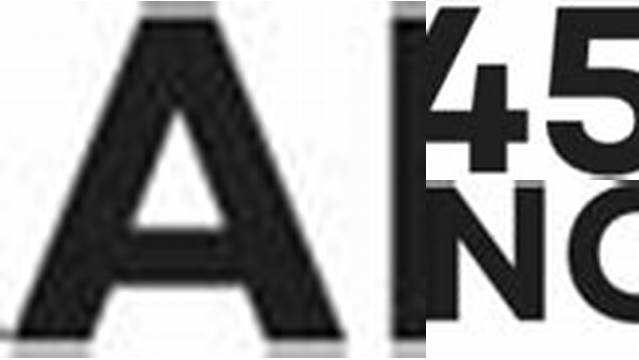
Let's talk about fonts, guys! Specifically, the Garet Bold OTF 700 font. It's a fantastic typeface, super versatile, and you might be looking to snag it for your next project. This guide will dive deep into everything you need to know about this font, from its characteristics to where you can safely download it for free. We’ll also explore its uses and some cool alternatives if you're feeling adventurous. So, buckle up, and let's get font-astic!
What is Garet Bold OTF 700 Font?
Garet Bold OTF 700 is more than just a font; it's a statement. This typeface boasts a strong, assertive character, making it ideal for headlines, logos, and anything that needs to grab attention. The “700” designation refers to its weight, indicating a bold, substantial appearance. Think of it as the font equivalent of a firm handshake. Its clean lines and modern aesthetic make it incredibly versatile, fitting into various design styles, from corporate branding to edgy posters. The OTF (OpenType Font) format ensures compatibility across different operating systems and software, which is a huge plus. You can use this font on Windows, macOS, and even in web design projects. The beauty of Garet Bold OTF 700 lies in its ability to convey confidence and professionalism, making it a go-to choice for designers seeking a font that commands respect. The boldness isn’t just about thickness; it’s about the impact the font makes on the viewer. When you use this font, you're not just writing words; you're making a visual declaration.
Key Features of Garet Bold OTF 700
The key features of Garet Bold OTF 700 are what make it stand out in a sea of fonts. First and foremost, its bold weight gives it a commanding presence. This isn't a font that blends into the background; it's designed to be noticed. The clean, geometric shapes contribute to its modern and professional look. It's the kind of font that looks just as good on a business card as it does on a website banner. The OTF format is another crucial feature. This ensures cross-platform compatibility, meaning you can use it seamlessly on both Windows and Mac. Plus, OTF fonts often include advanced typographic features like ligatures and alternate characters, giving you even more creative control. Ligatures, for instance, are special characters that combine two letters into a single glyph, enhancing readability and visual appeal. The legibility of Garet Bold OTF 700 is also top-notch. Despite its boldness, the letters remain distinct and easy to read, even at smaller sizes. This makes it suitable for a wide range of applications, from body text to headlines. In essence, Garet Bold OTF 700 combines visual impact with practical functionality, making it a valuable asset in any designer's toolkit. It’s a font that works hard and looks good doing it.